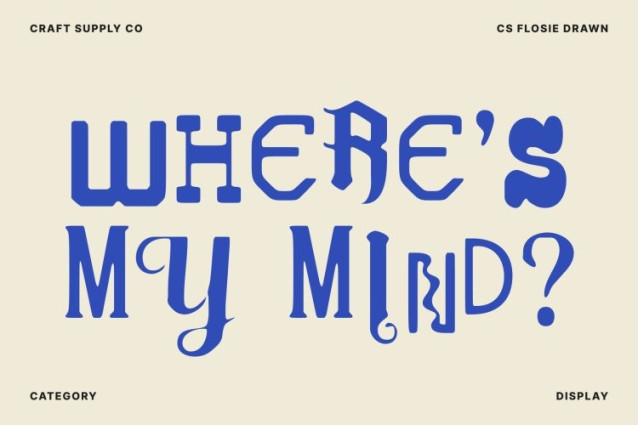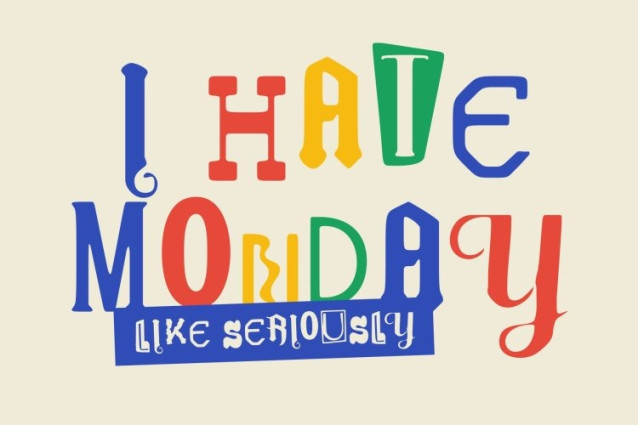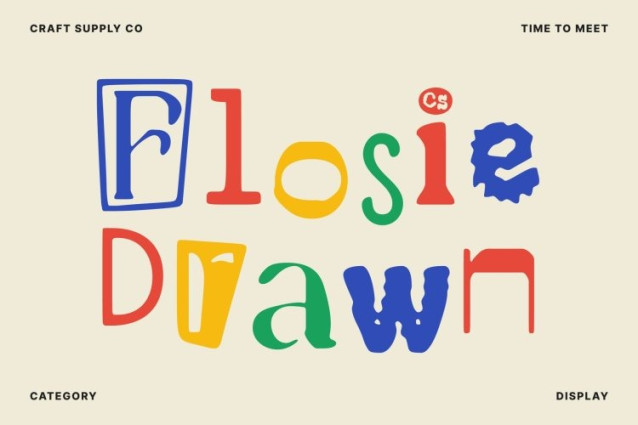
CS Flosie Drawn Font
CS Flosie Drawn Font This is a ransom style display font created to break norms and ignite visual disruption. Its chaotic construction, inspired by cut-and-paste ransom lettering, injects every design with rebellious personality and dramatic flair. The mismatched shapes and irregular forms create an edgy, untamed aesthetic that instantly commands attention.
Collage-Inspired Shapes for Dramatic Impact
Built from collage-style elements, this font brings together cut-out contours and fragmented silhouettes to form a bold, unpredictable rhythm. Each letter feels stitched together from contrasting pieces, giving the typography a raw, handmade energy. This collage effect adds tension and excitement, making the font perfect for designs that crave drama, and experimental flair.
Drawn Texture for Unique Character in Every Corner
The drawn effect enhances the chaotic essence of this font, giving every character a textured, hand-crafted feel. Subtle irregular strokes and organic edges introduce depth and authenticity, ensuring no letter feels too clean or predictable. These artistic details amplify the font’s disruptive personality, making it feel alive, expressive, and uniquely crafted in every corner.
Perfect for Posters, Edgy Branding, and Album Covers
This font thrives in bold, expressive environments whether you’re creating striking posters, rebellious branding, gritty editorial titles, or dramatic album covers. Its disruptive style adds attitude to music visuals, streetwear identities, zines, creative campaigns, and protest-inspired artwork.